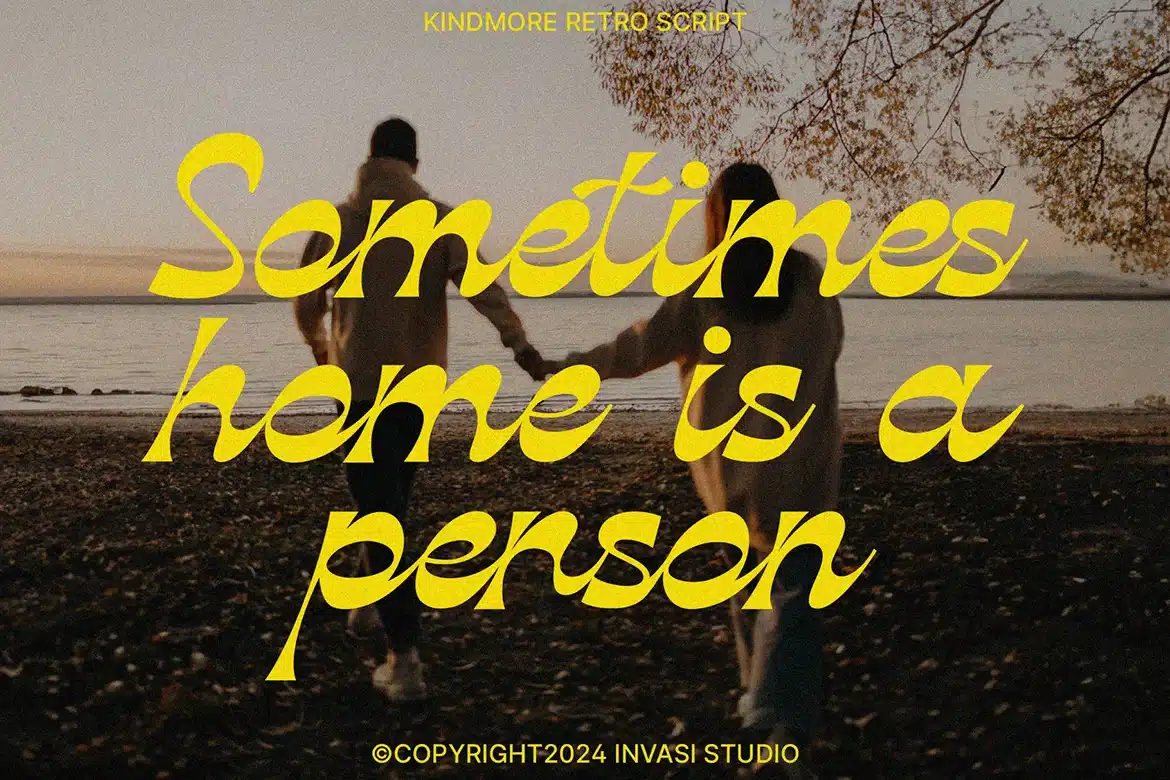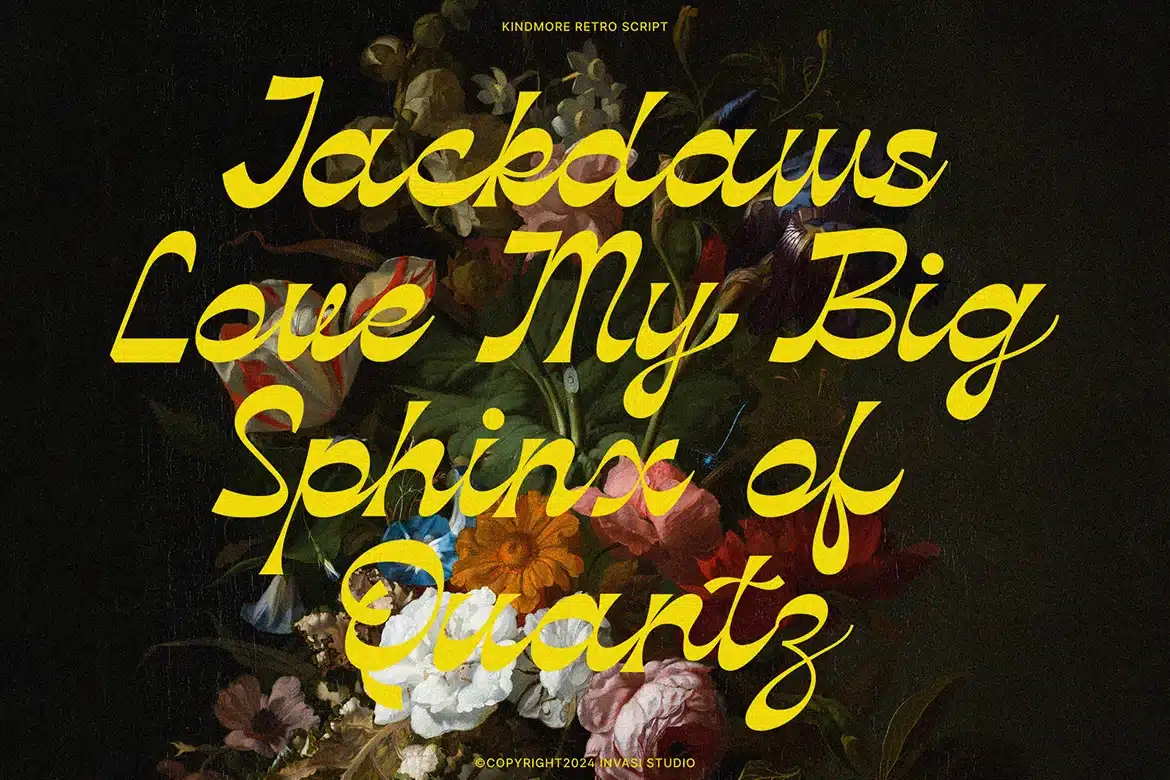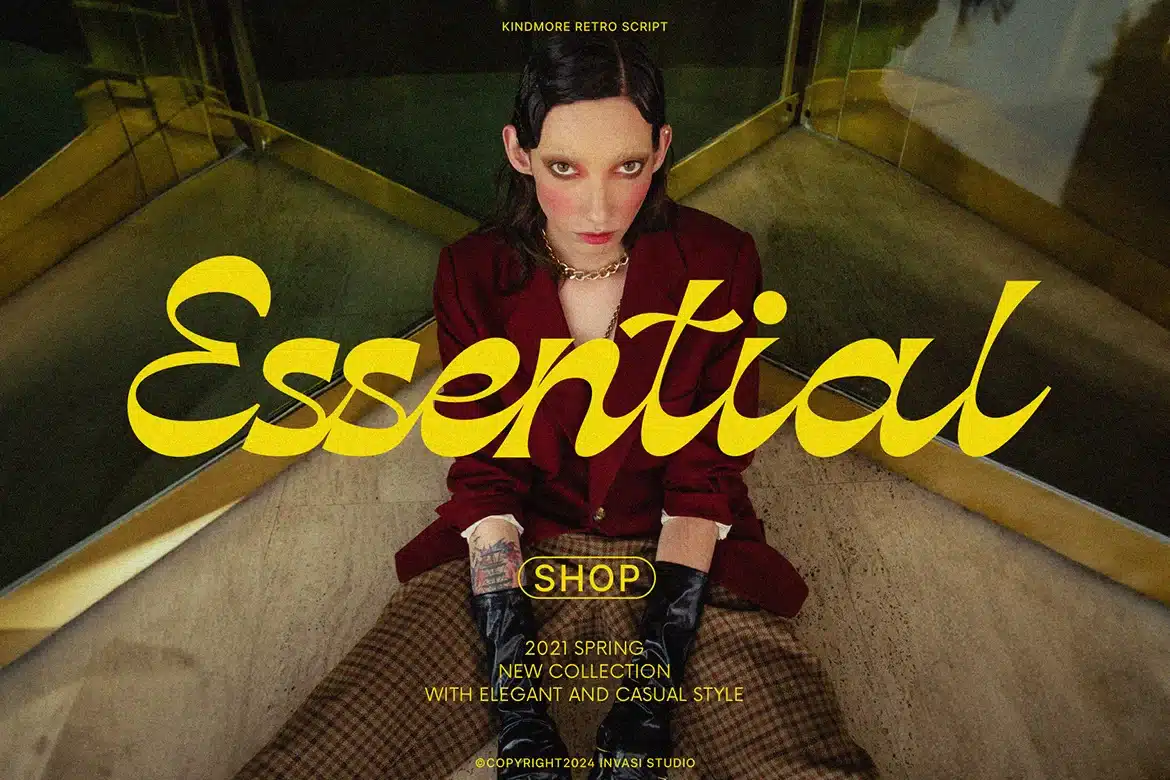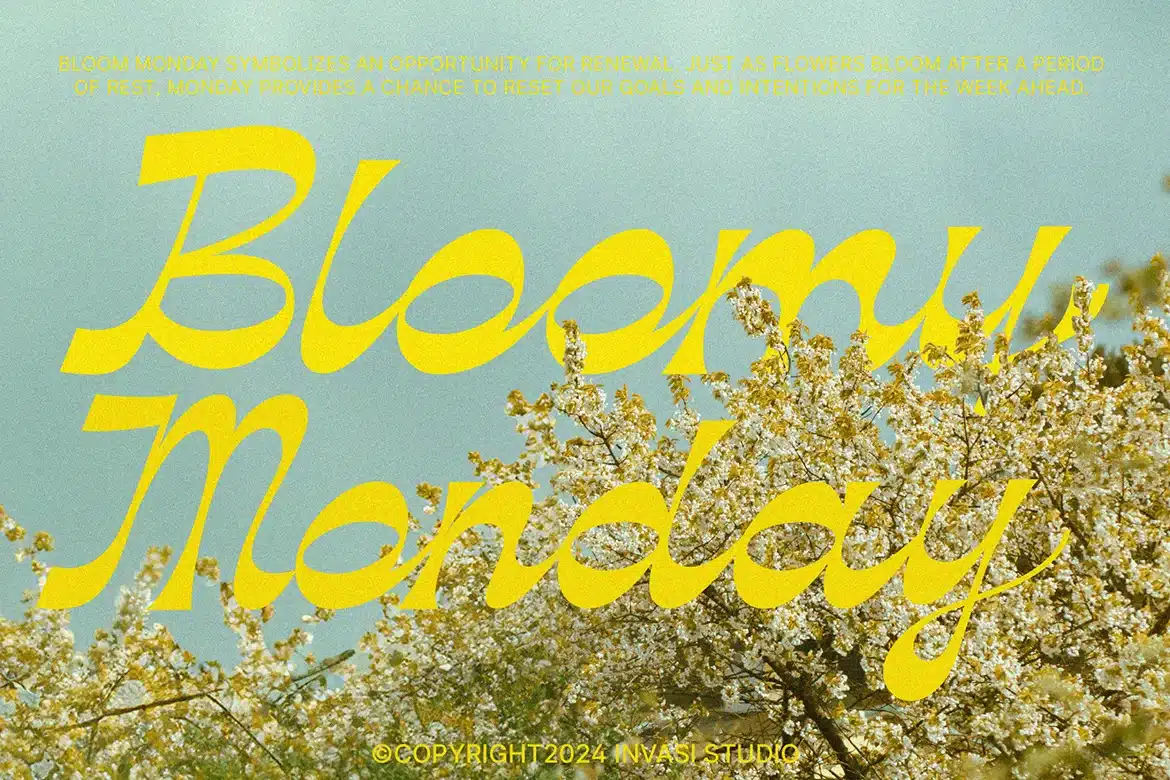
Kindmore – Reverse Script Font
Elevate your design game with Kindmore, a captivating script font boasting a reverse classic vintage style. Whether you're diving into retro vibes or exploring diverse design themes, Kindmore's versatility has you covered. Meticulously crafted, its alternates and ligatures add an extra layer of intrigue to your projects, while intentional imperfections maintain a casual charm without compromising legibility. Ideal for headlines, flyers, posters, greeting cards, product packaging, book covers, logotypes, and album covers, Kindmore is your go-to font for making a lasting impression. Give your creations the flair they deserve – embrace Kindmore today!